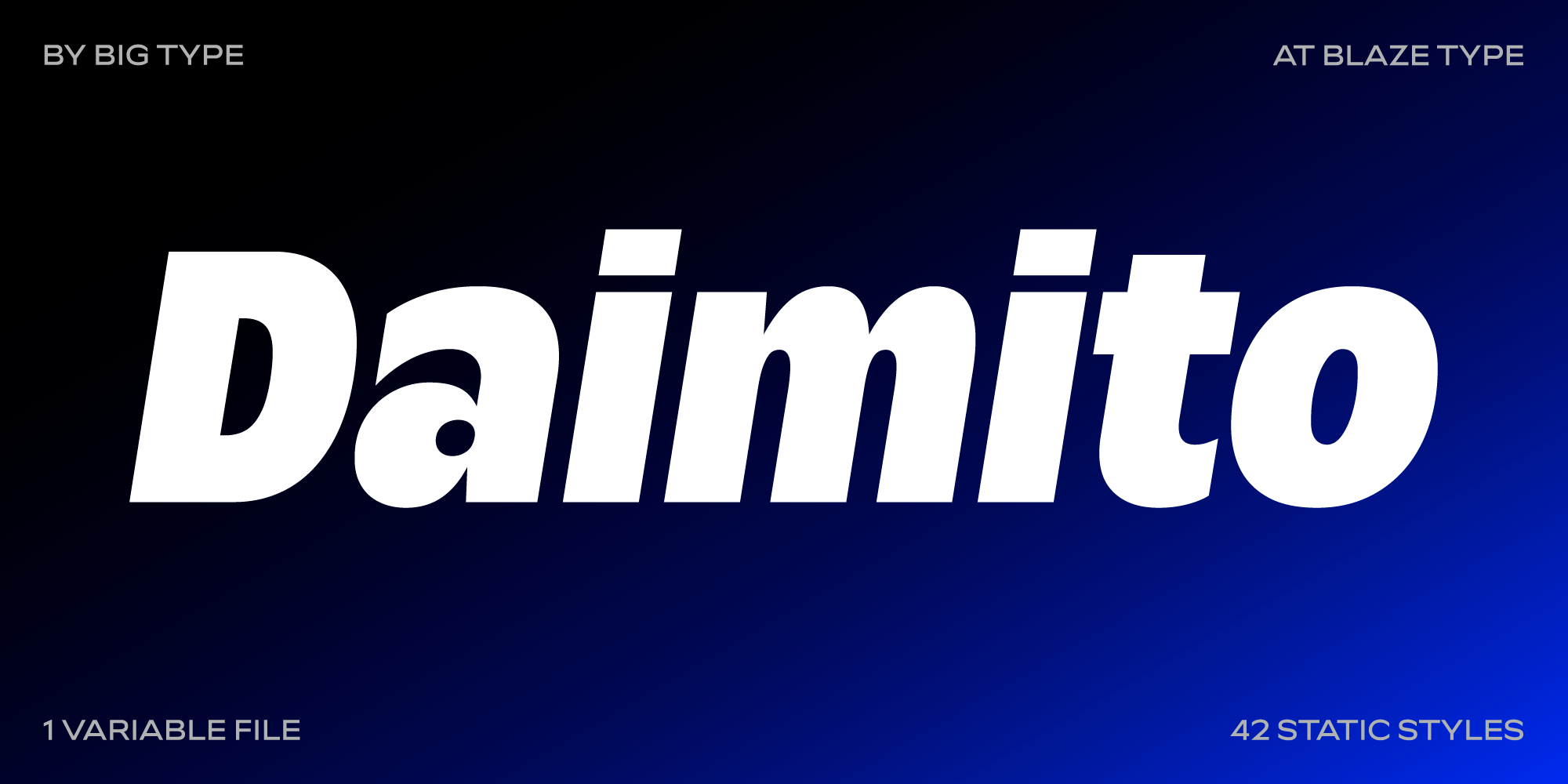
Daimito Font excels in various design applications including creative agency branding, artistic portfolios, experimental posters, modern art exhibitions, innovative logos, digital art projects, contemporary magazines, and cutting-edge advertising campaigns. This distinctive typeface adapts brilliantly to both avant-garde digital experiences and artistic print materials, making it perfect for designers seeking creative expression and unique visual personality.
Daimito Font generates excitement among creative professionals due to its unconventional character and artistic flair that instantly conveys innovation and creative thinking. The font's unique letterforms and experimental proportions create an immediate sense of originality and artistic vision. Its bold personality makes it particularly appealing for brands wanting to communicate creativity, individuality, and artistic excellence in their visual communications.
The Daimito Font family includes multiple weights and styles such as Regular, Bold, Light, Condensed, and Extended variations. Each family member maintains creative design principles while offering distinct artistic characteristics. The Light weight provides subtle artistic elegance for sophisticated layouts, while the Bold version delivers powerful creative impact for attention-grabbing headlines and artistic statements.
Artistic designers frequently choose Daimito Font Free Download for projects requiring both creative authenticity and visual distinction. This typeface demonstrates exceptional versatility across creative industries including design studios, art galleries, fashion brands, and innovative companies. Its unique character allows organizations to communicate creativity while maintaining excellent readability and distinctive artistic appeal.